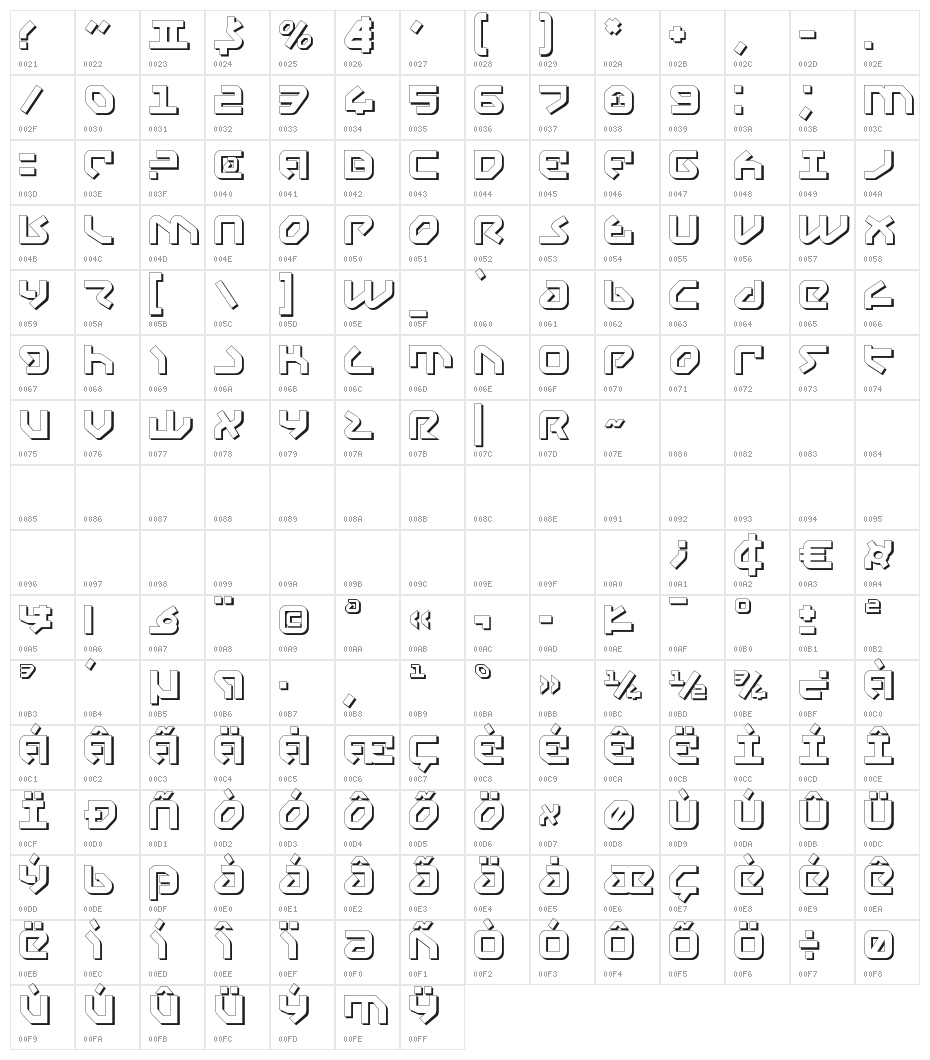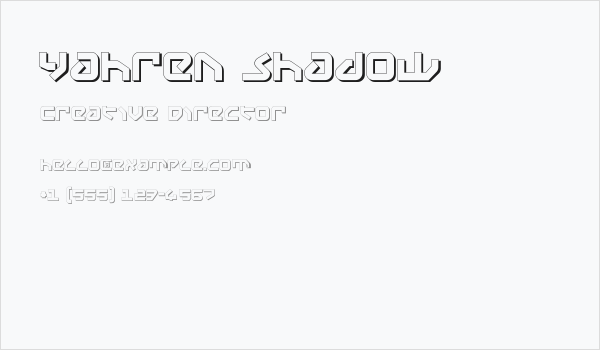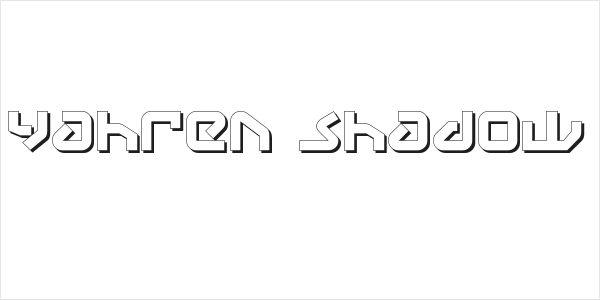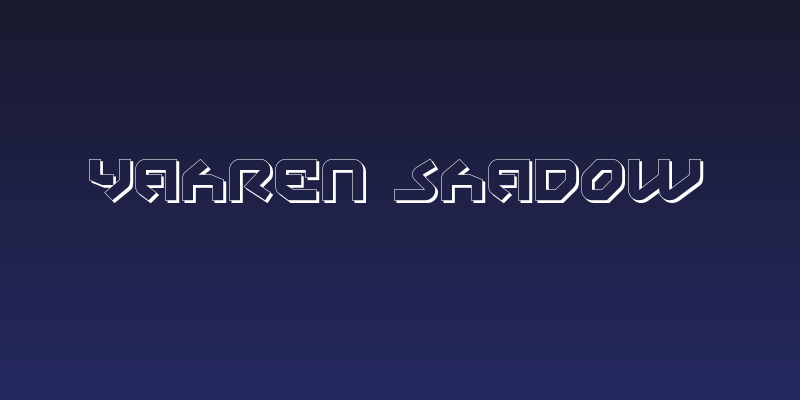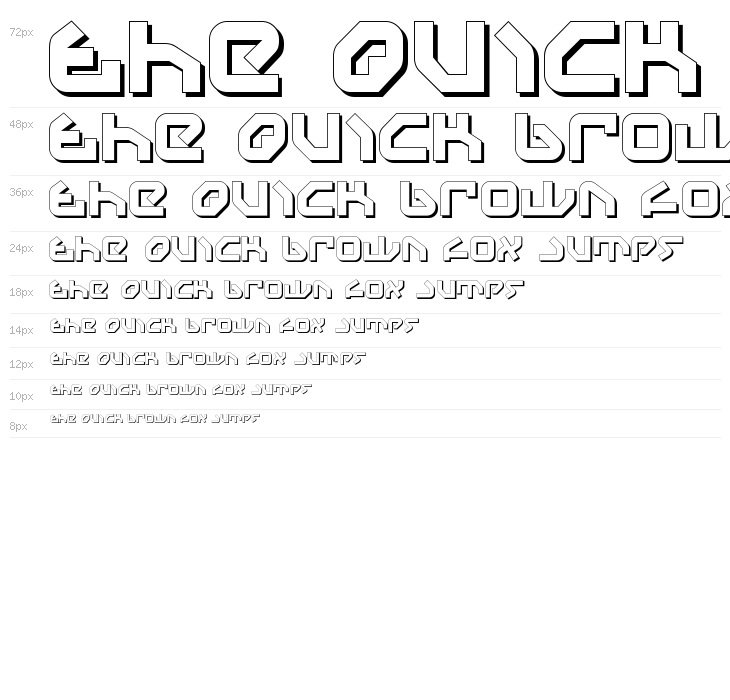
Yahren Shadow Font
Yahren Shadow Description
This font features a bold, geometric design with a shadow effect that gives it a three-dimensional appearance. The characters are constructed with sharp angles and clean lines, creating a futuristic and dynamic look. The uppercase and lowercase letters maintain a consistent style, with the shadow adding depth and emphasis. Numbers and special characters are designed to match the overall aesthetic, ensuring uniformity across all elements. This font's unique style makes it stand out, making it ideal for projects that require a modern and eye-catching typeface.
Proposed ProjectsIdeal for futuristic designs, tech branding, video game titles, and posters.